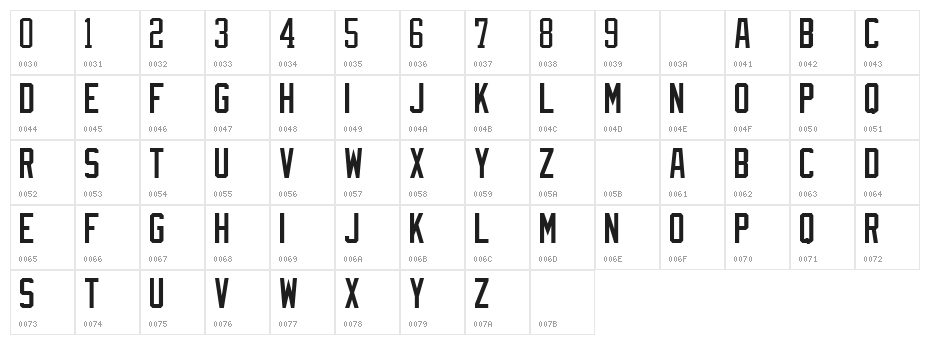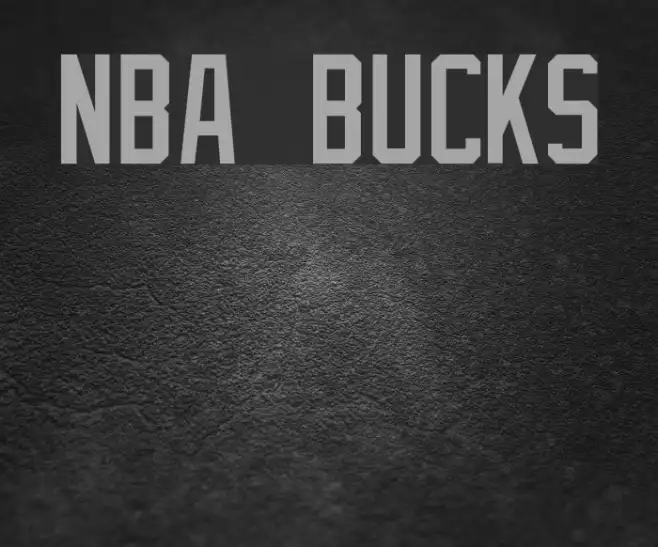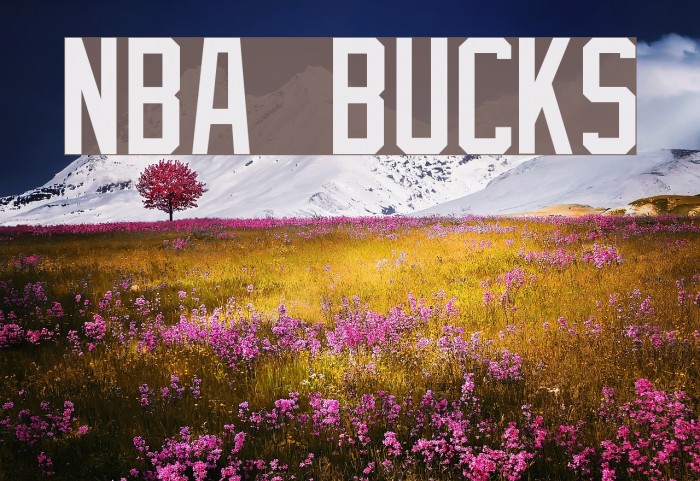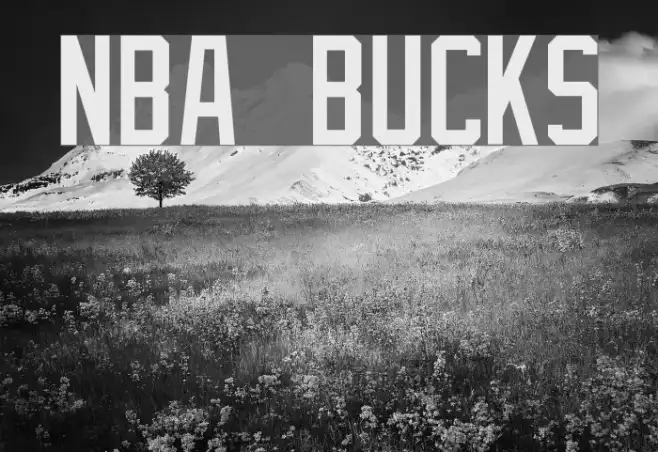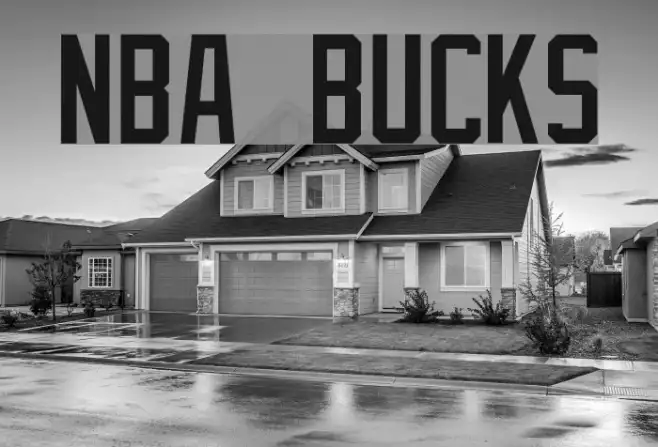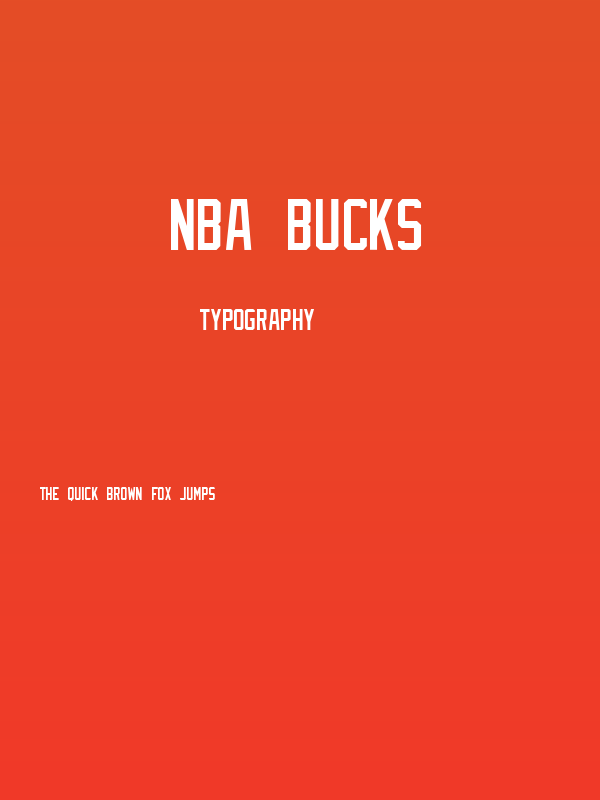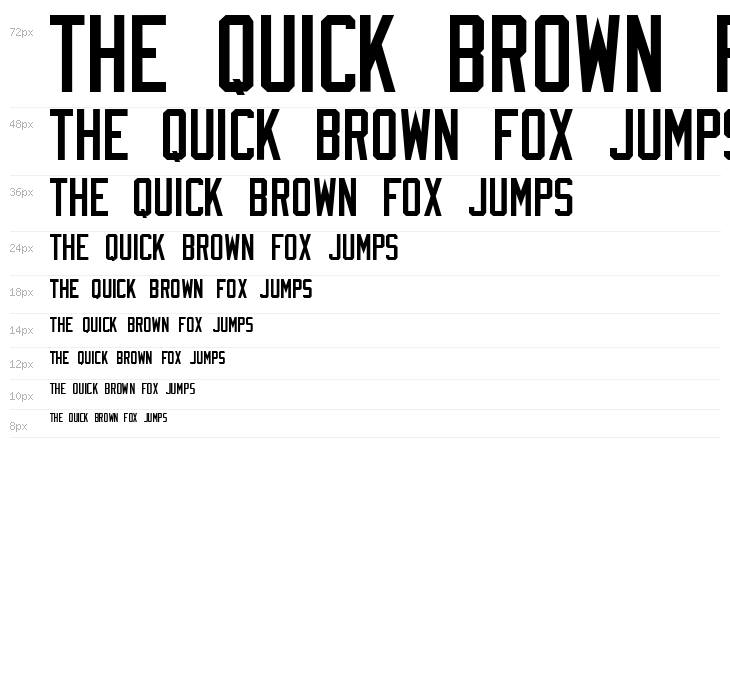
NBA Bucks Font
NBA Bucks Description
This font features a bold, geometric style with strong, angular lines and a modern aesthetic. The uppercase letters are tall and narrow, with consistent stroke widths that give a uniform appearance. The numbers are similarly styled, maintaining the same height and width proportions as the letters, which contributes to a cohesive look. The font's design is clean and impactful, making it suitable for attention-grabbing headlines or branding. The lack of serifs and the uniformity in stroke width suggest a contemporary feel, while the angularity adds a touch of aggression and strength.
| Proposed Projects | Ideal for sports branding, team logos, merchandise, and dynamic headlines. |